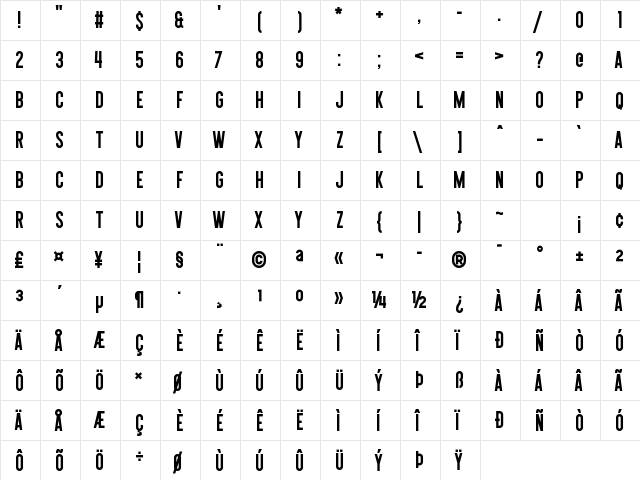
Queen of Clubs Regular Font Preview
Queen of Clubs Regular
Queen of Clubs Regular Font Details
Design Context for Queen of Clubs Typeface
Queen of Clubs is a composed and adaptable typeface that performs quietly and consistently across a wide range of design contexts.